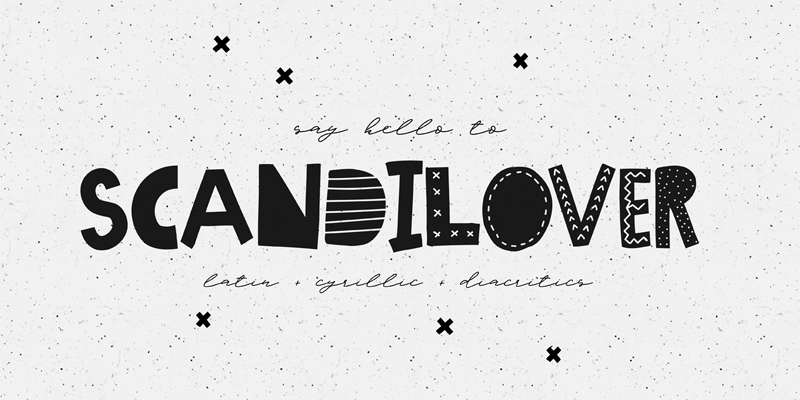
Preview and download Scandilover Font. Created by Katsia Jazwinska in Fancy Decorative styles with Demo license.
This is the demo version which was made for you to try out it in your projects. This means you can NOT use it for personal or commercial aims. DOWNLOAD FULL VERSION FOR PERSONAL AND COMMERCIAL USE: http://myfonts.us/NHZ2SD or https://crmrkt.com/8pkmQr Scandilover is one of two fonts from Scandilover Family, which was inspired by monochrome Scandinavian style kid rooms full of handwritten graphics, black and white accessories and prints. It’s a playful display font with its personal charisma. Each letter in the font perfectly combines with another and all in all creates a text that is an entire illustration itself. |